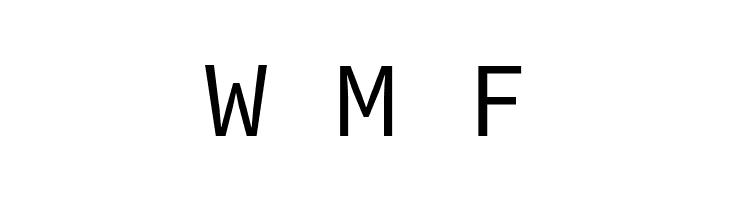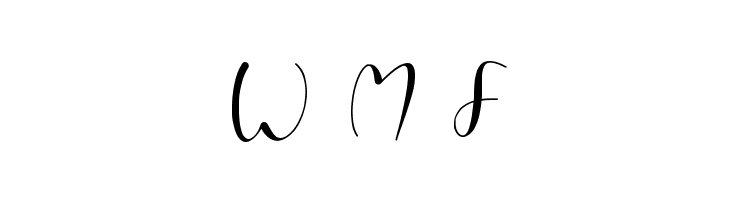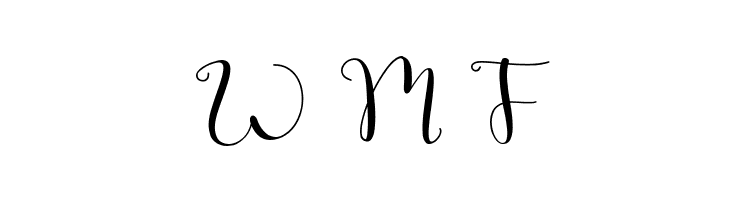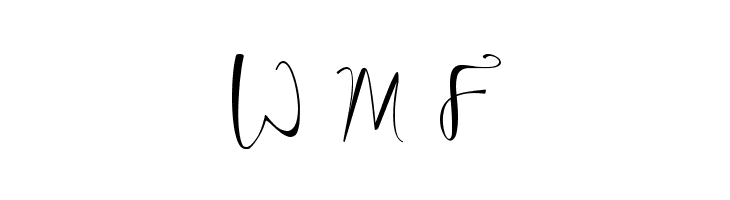
A modern, italic font with clean lines and balanced proportions.
A bold, modern font with clean lines and excellent readability.
A modern, monospaced typeface with clean lines and uniform spacing.
A bold, italicized font with strong strokes and a modern aesthetic.
A modern, light, and italicized font with clean lines and balanced spacing.
An elegant, cursive font with intricate flourishes and a handwritten style.
A decorative cursive font with elegant loops and swirls.
An elegant and flowing script font with graceful, cursive letterforms.
An elegant and decorative script font with intricate swirls and flourishes.
An elegant, flowing script font with smooth, cursive strokes and artistic flair.